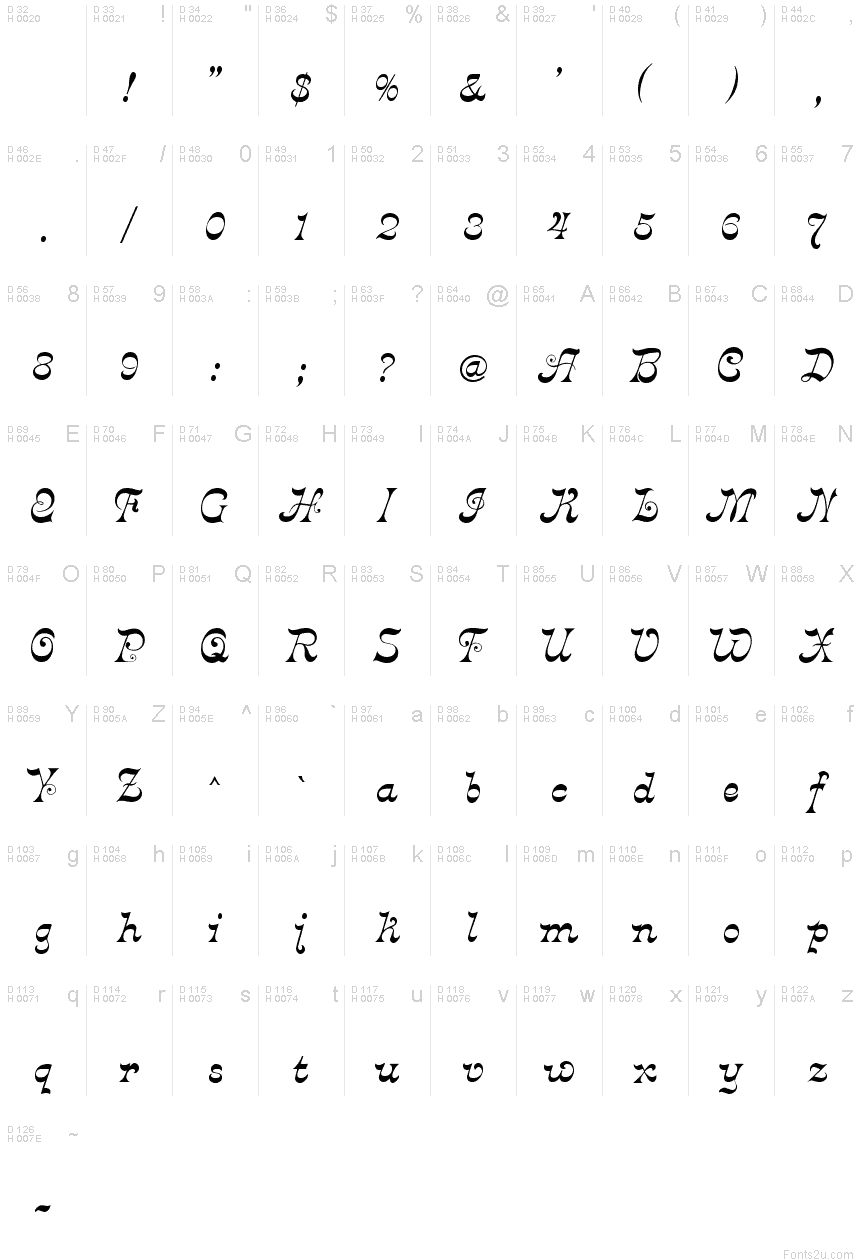
Crayonnette
Crayonnette by Claude Pelletier is a free whimsical calligraphic display font with a distinctly storybook silhouette. Its broad, rounded strokes taper into fine hooks and lively curled ends. The irregular forms feel drawn rather than typeset.
That fairy-tale quality suits children's book covers, confectionery packaging, and posters for family theatre. The winding contours echo clouds, vines, and crooked paths found in children's illustration, tying the lettering closely to fanciful scenery. On a theatre poster, the scrolling letters can become wisps or tendrils within the artwork instead of serving as neutral text.
Claude Pelletier